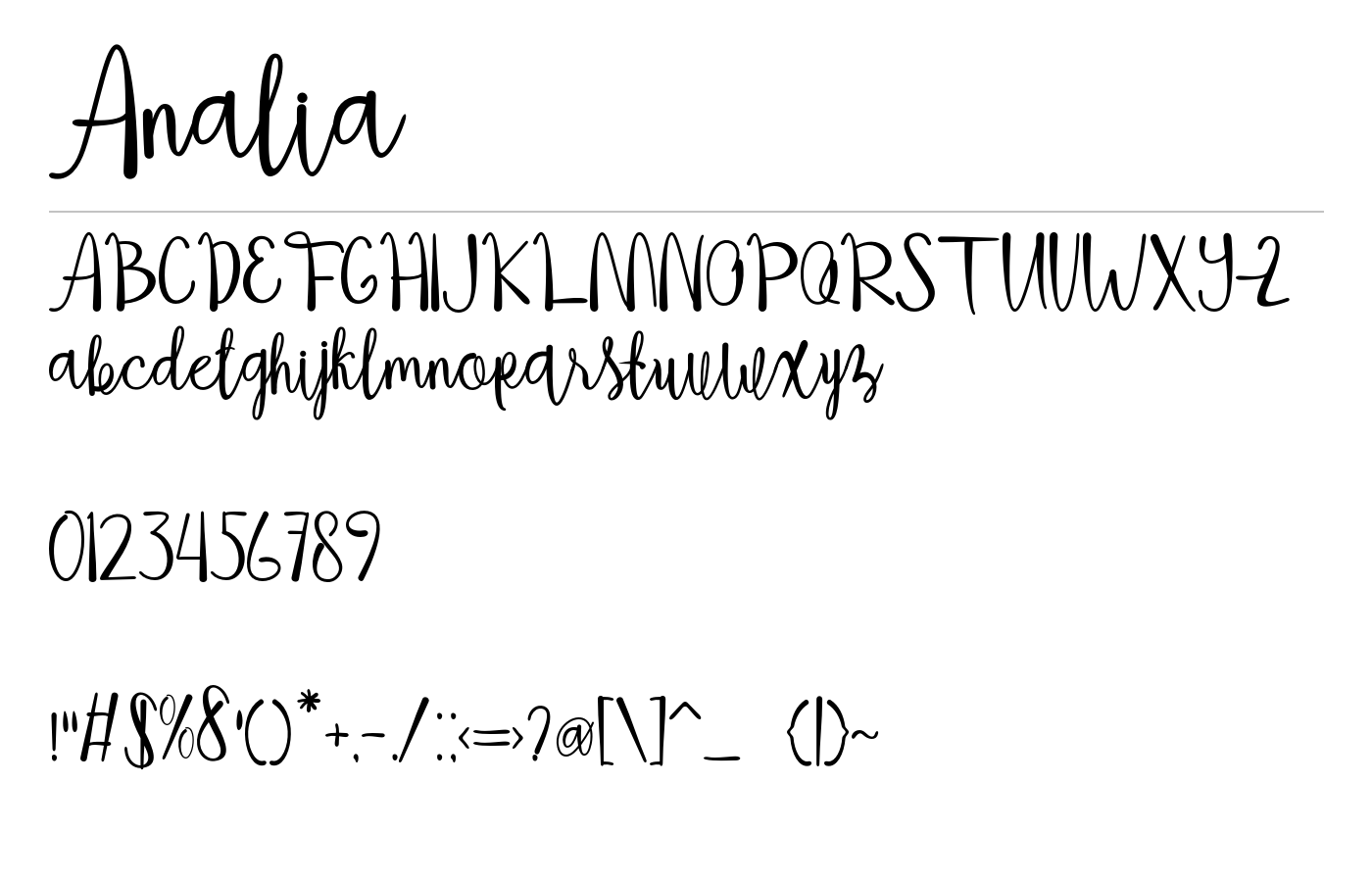
Analia is a playful, handwritten script font with tall, slender letterforms that convey a casual and friendly mood. Its light stroke weight and slightly irregular shapes give it a natural, personal touch, making it perfect for creative branding, invitations, and informal designs that seek warmth and charm. This font works well in headlines and decorative uses where an inviting and approachable style is desired.
Analia Font
About Analia Font
| Font family | Analia Font |
| Designer | Arepgunkell |